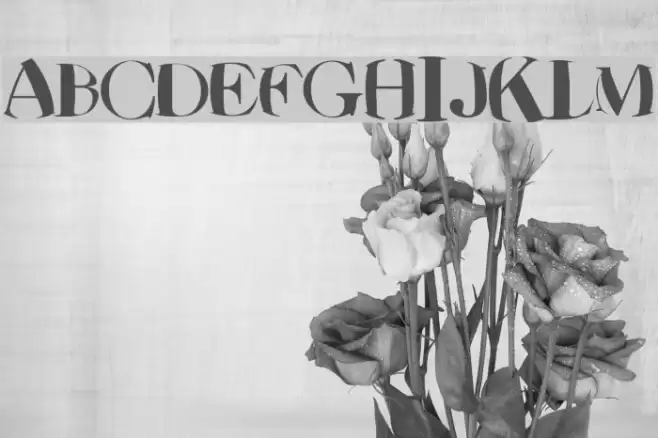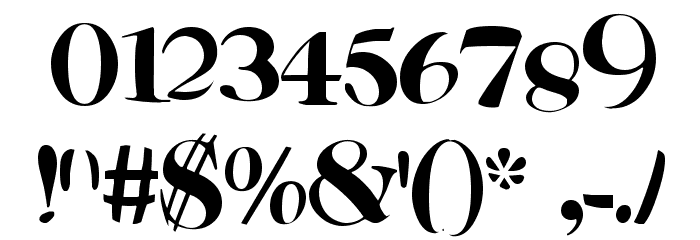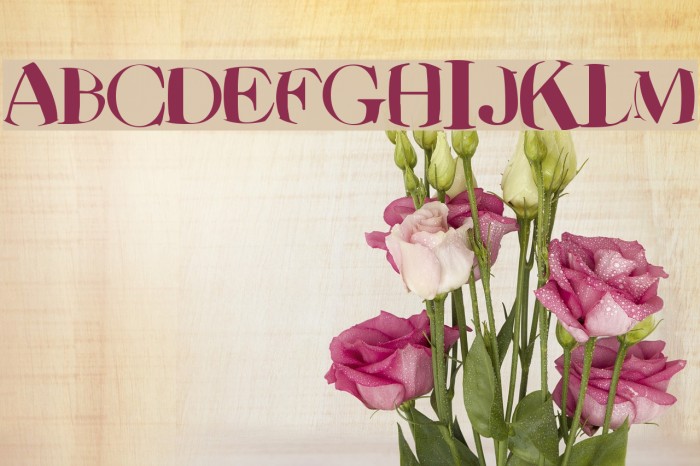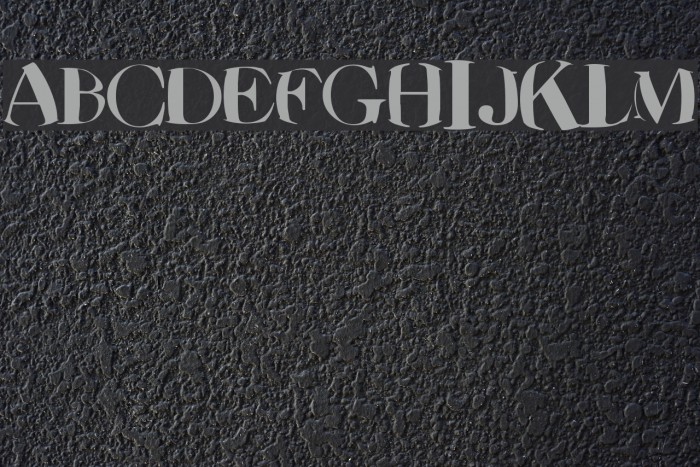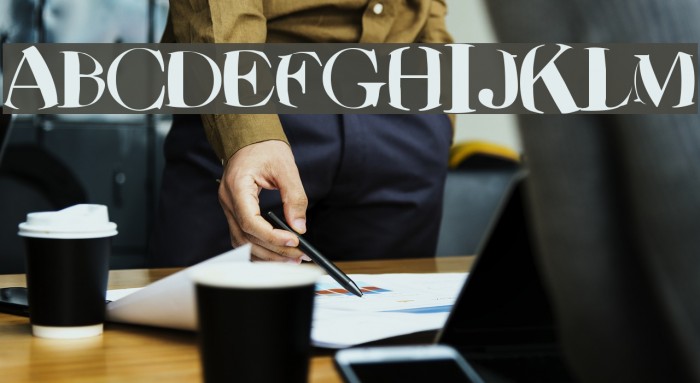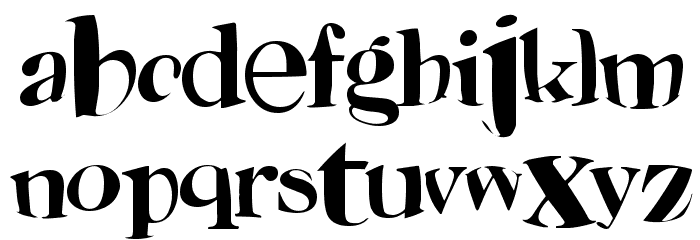
SuessFont Font
SuessFont Description
This font features a whimsical and playful design, characterized by its exaggerated curves and uneven strokes. The letters have a hand-drawn quality, with varying thickness that adds a dynamic and lively feel. The uppercase letters are bold and dramatic, while the lowercase letters maintain a quirky charm. The numbers and special characters follow the same playful style, making the font suitable for creative and informal projects. Its unique style captures attention and adds a sense of fun and creativity to any design.
A whimsical and playful font with exaggerated curves and uneven strokes from Quirky fonts.
- Proposed Projects: Ideal for children's books, playful branding, creative posters, and whimsical invitations.
- Overall Style: Playful and Whimsical